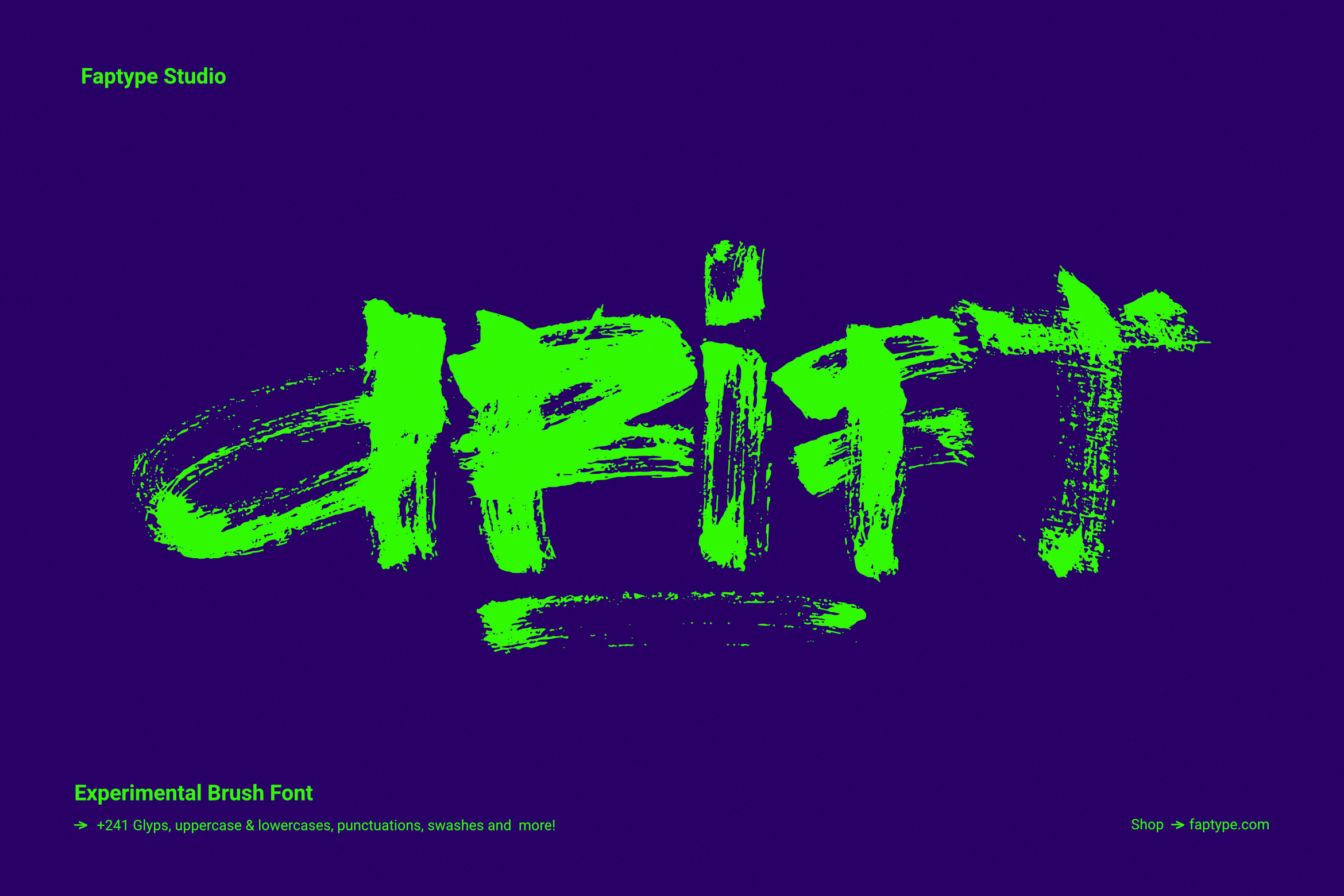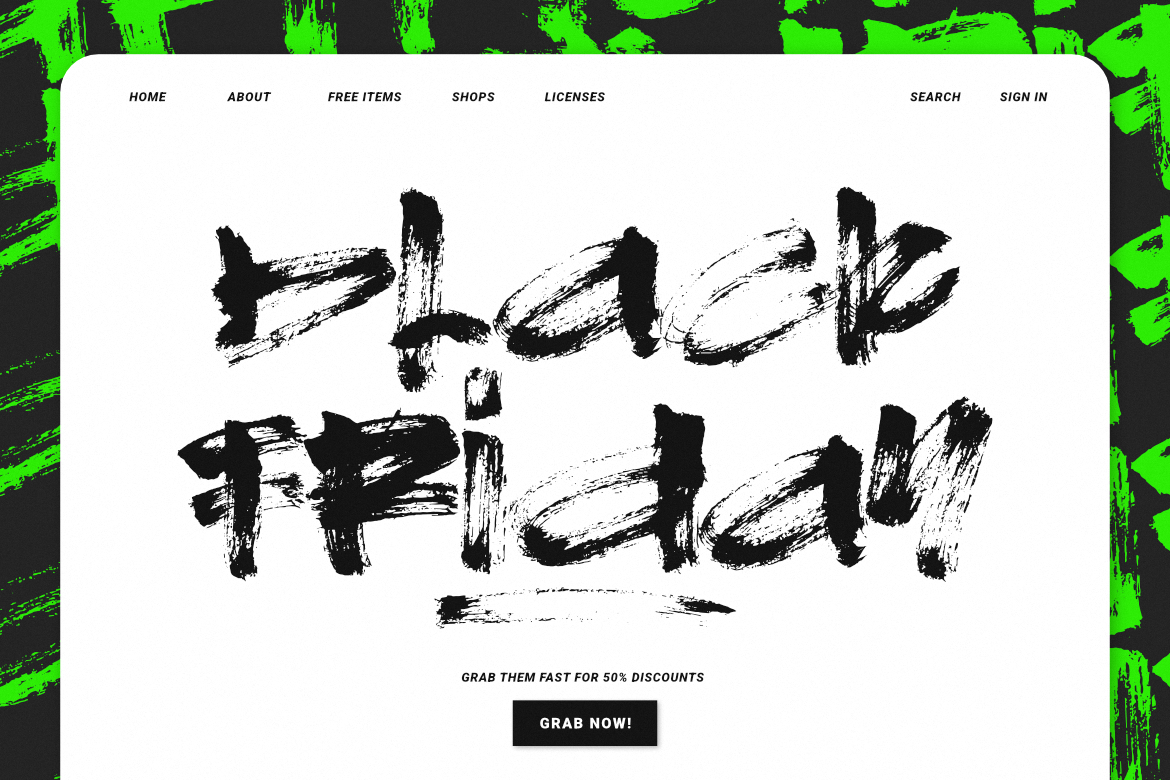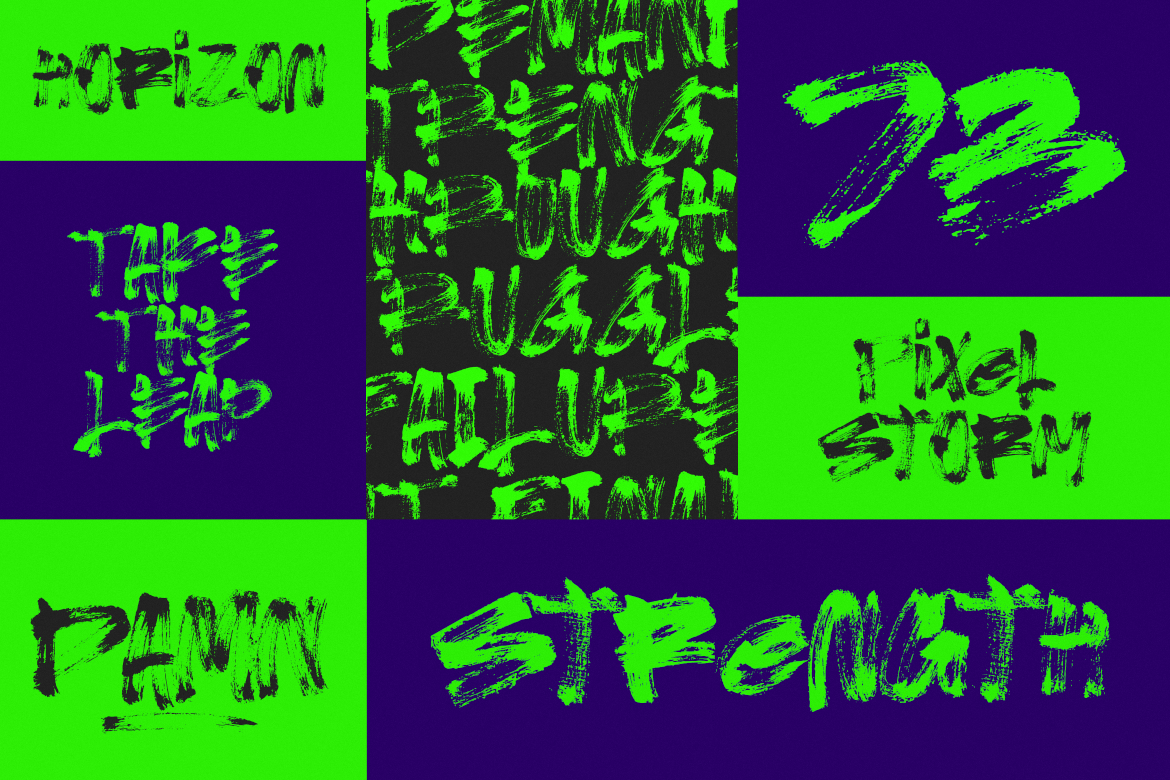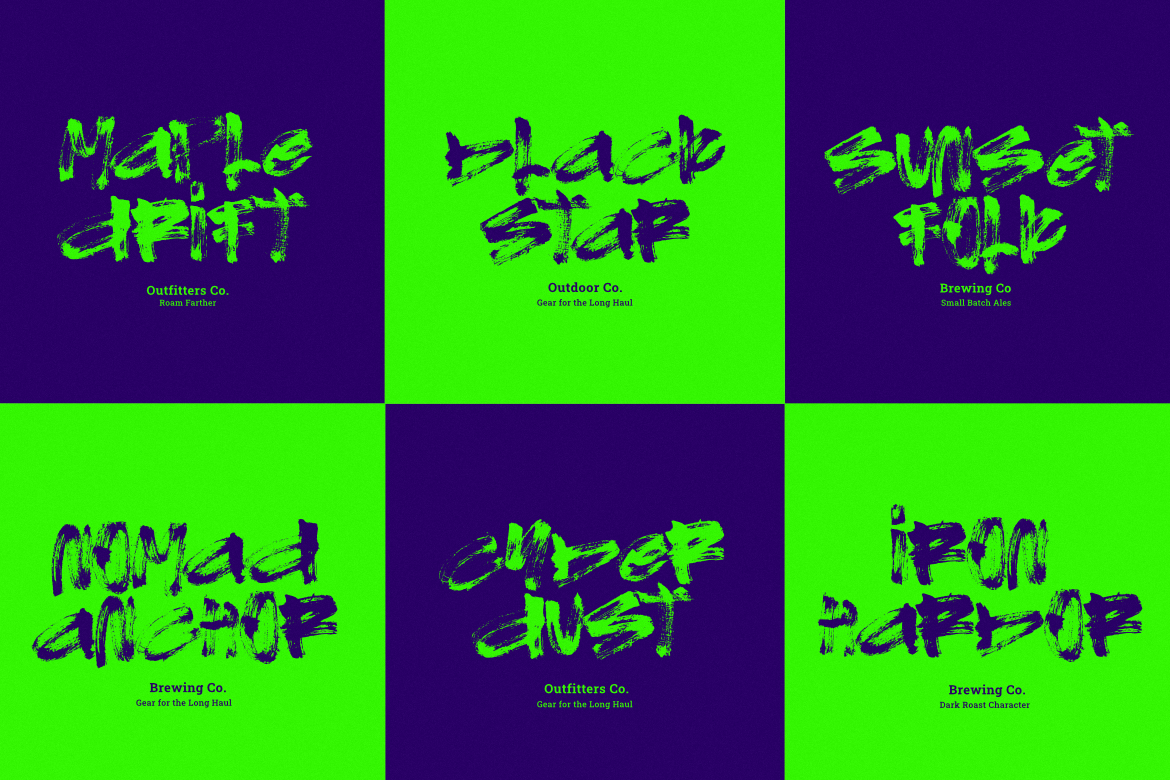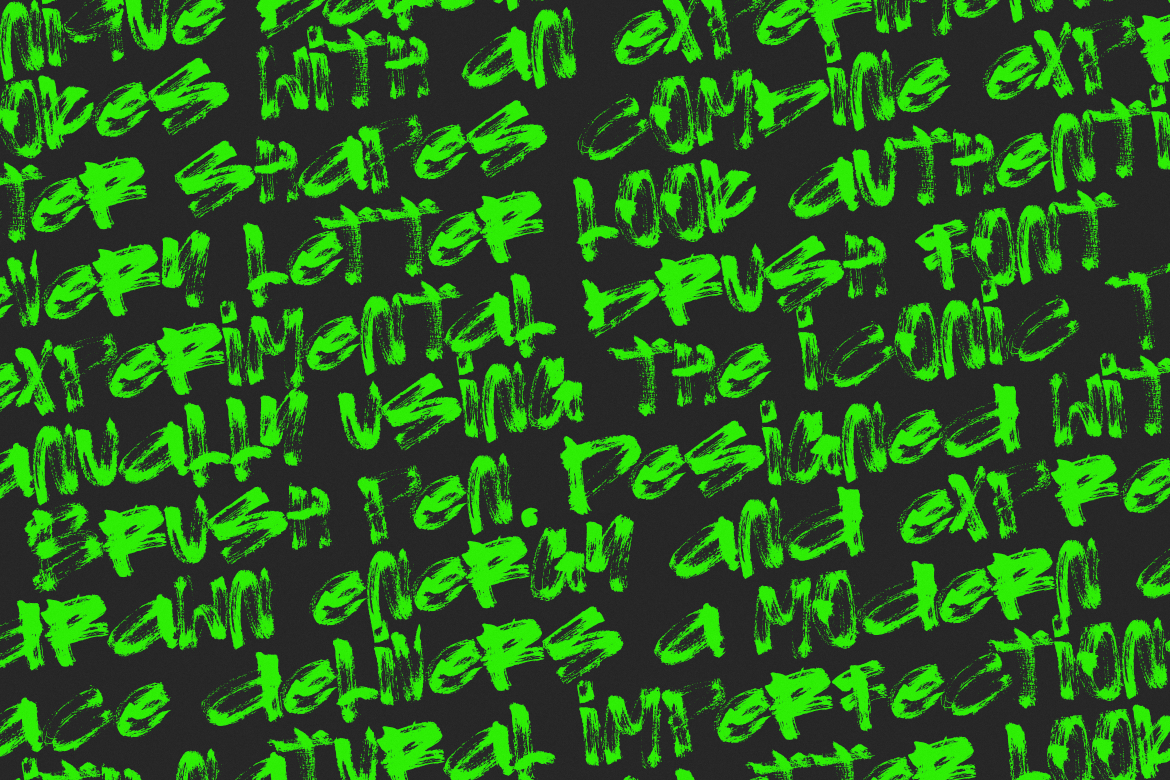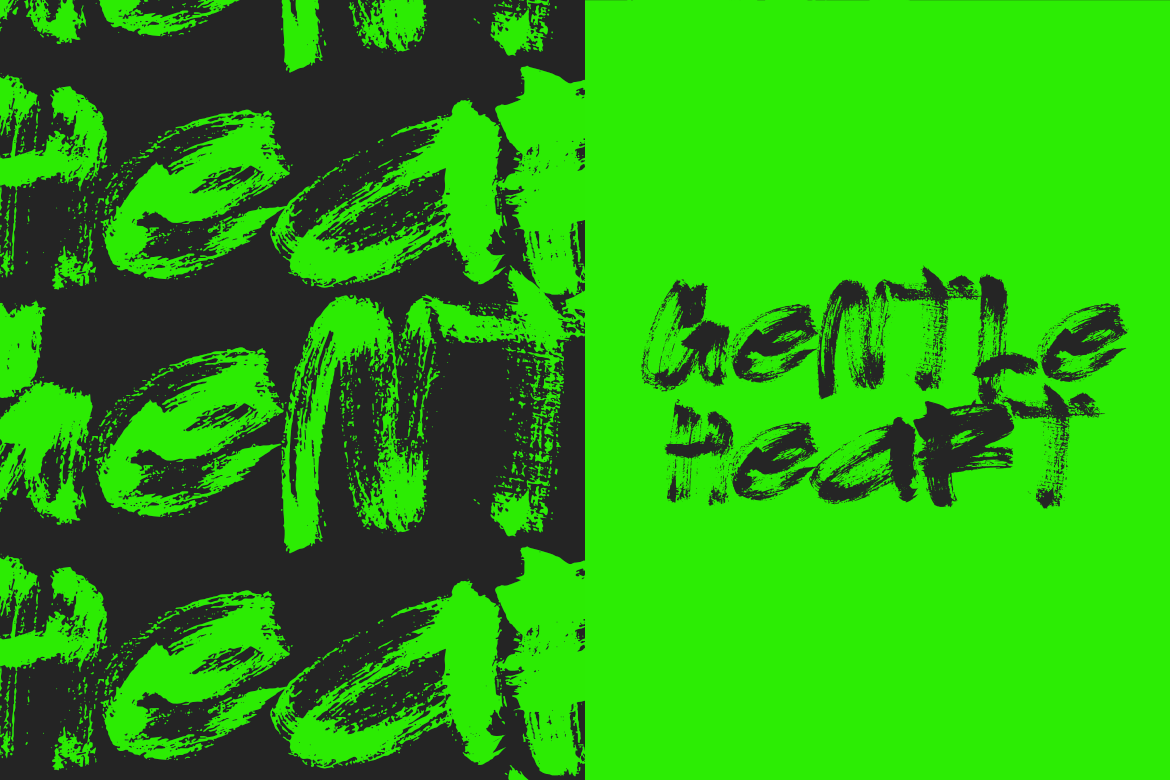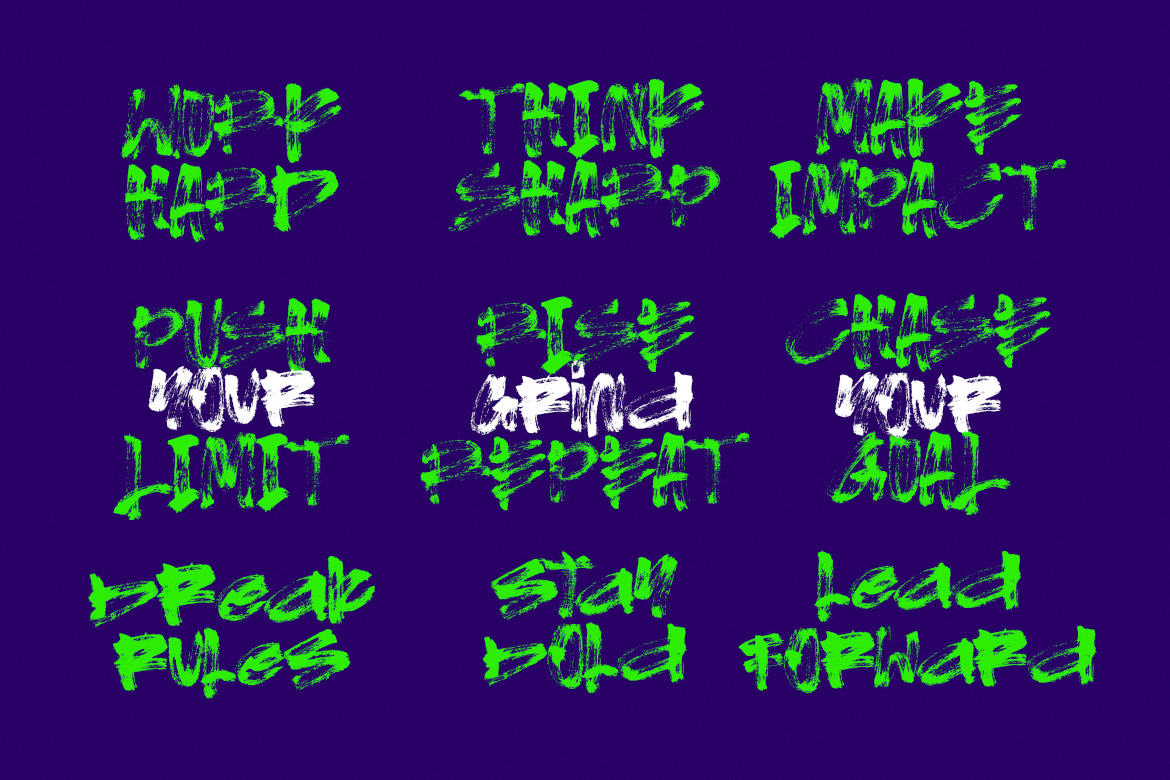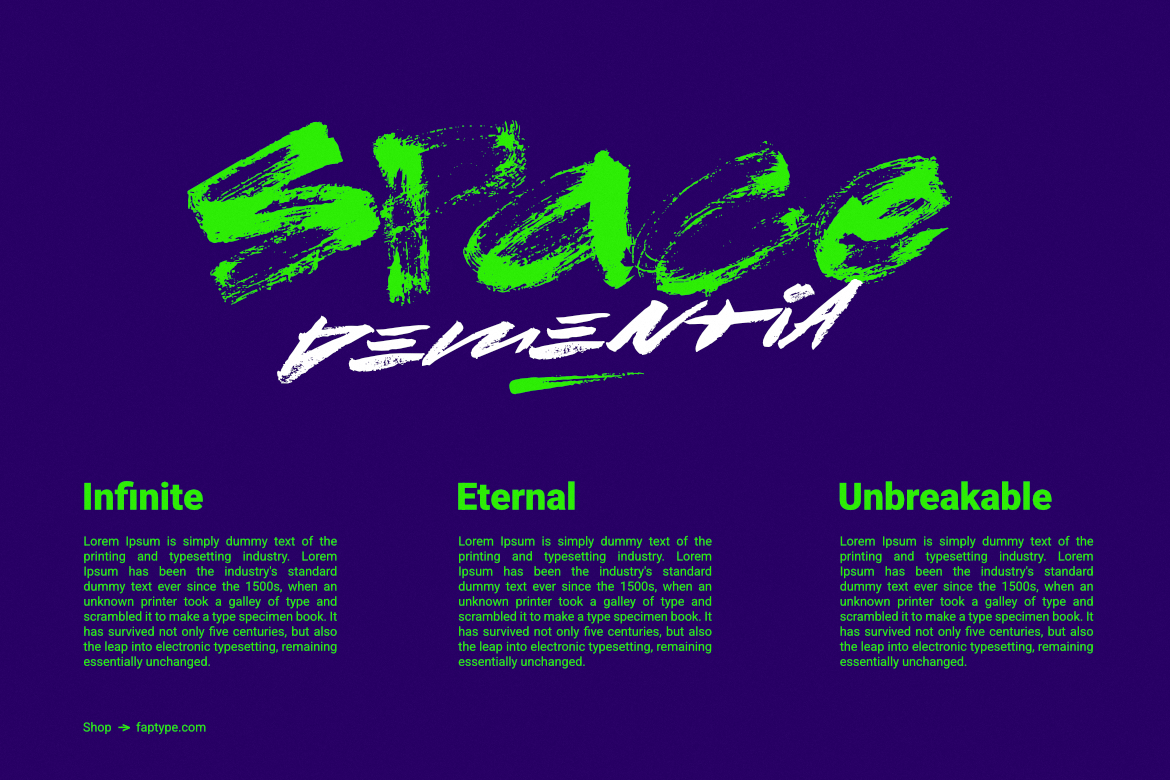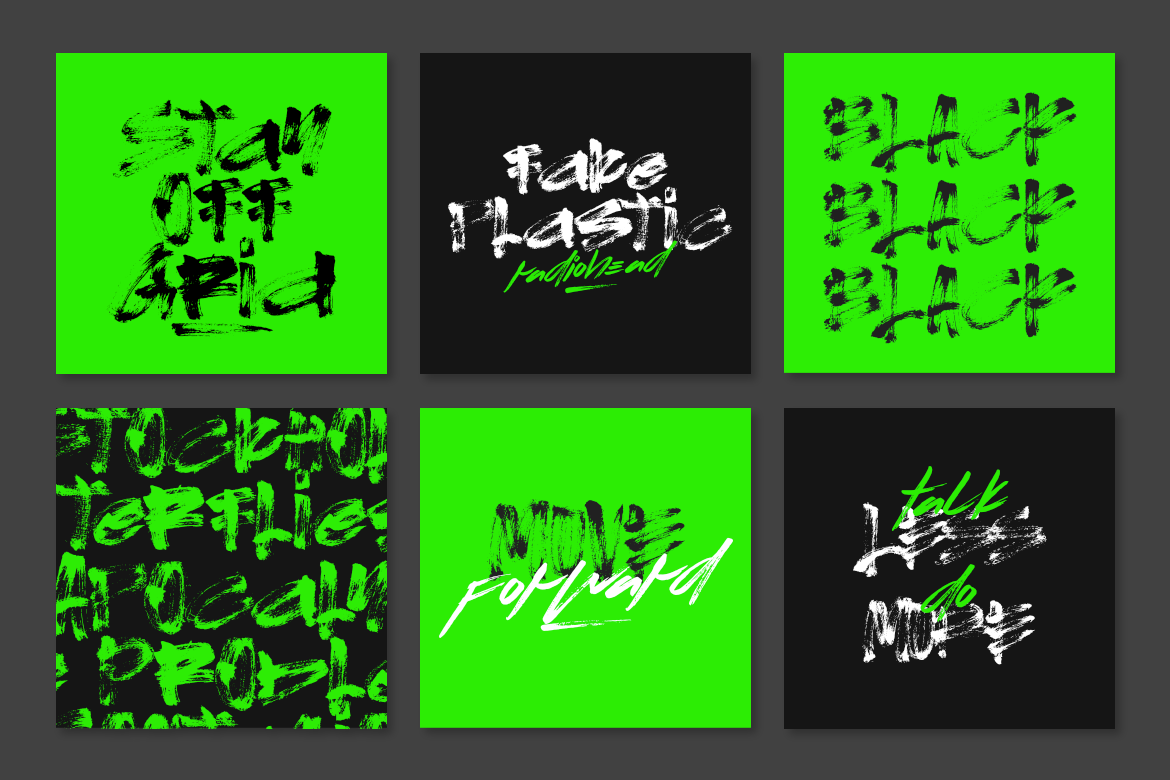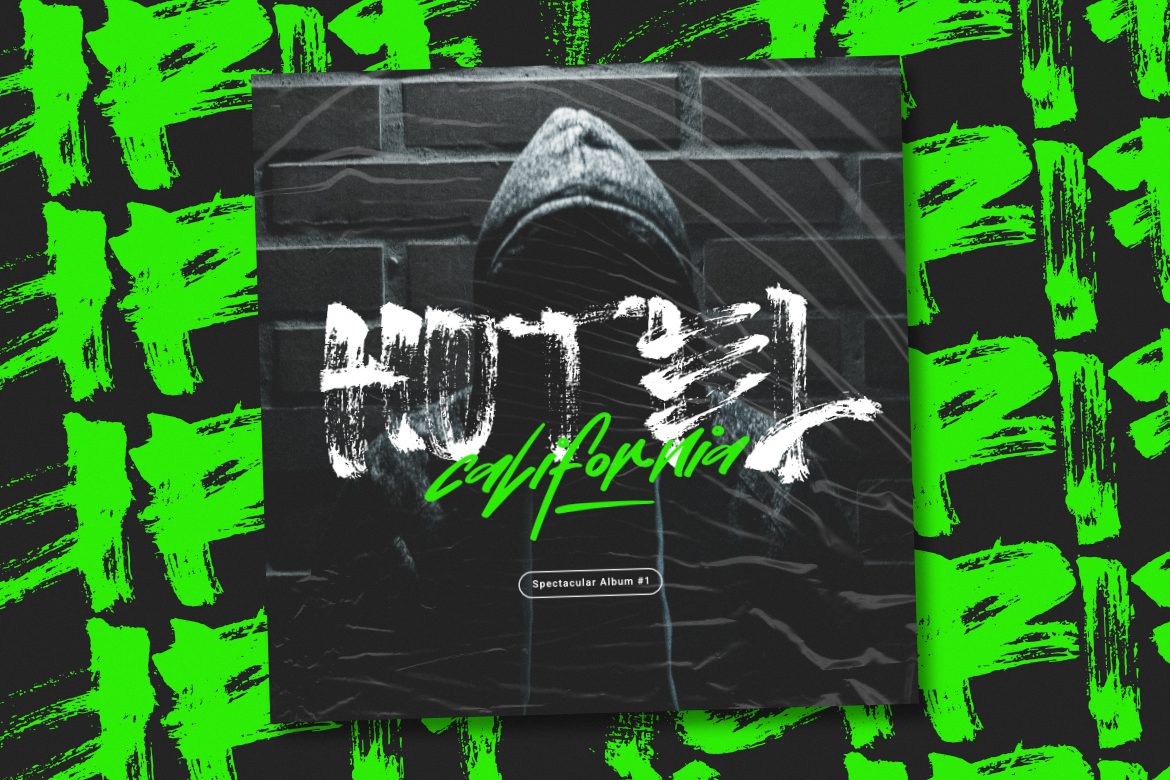
Drift – Experimental Brush Font is a raw and expressive brush typeface created using the Tombow Fudenosuke Brush. Built from real hand-painted strokes, Drift combines aggressive brush movement, rough ink textures, and imperfect letterforms to create a bold and energetic display font.
Unlike clean and polished brush fonts, Drift embraces the unpredictable character of real brush lettering. The strokes are intentionally rough, distressed, and irregular, creating a strong handmade appearance with plenty of natural texture and movement.
Each letter carries the marks of the brush, from dry and broken strokes to heavy ink buildup and loose paint-like details. This gives Drift its distinctive raw aesthetic and makes it especially effective for designs that need attitude, energy, and a handcrafted edge.
Drift Experimental Brush Font includes a complete uppercase and lowercase character set, numerals, punctuation, symbols, and decorative swashes. With its expressive character set and authentic brush texture, Drift gives designers plenty of freedom to create bold and unconventional typography.
Raw & Experimental Brush Lettering
The main character of Drift comes from its rough and unpredictable brush strokes.
Rather than trying to imitate perfectly controlled lettering, Drift preserves the imperfections of real brushwork. Uneven edges, dry-brush marks, broken strokes, and natural ink textures give the typeface a raw and energetic personality.
This makes Drift an excellent choice when clean typography feels too ordinary and you want your lettering to become a strong visual statement.
Created with Tombow Fudenosuke Brush
Drift was manually created using the Tombow Fudenosuke Brush, allowing the original brush movement and ink texture to become an important part of the typeface.
The result is a genuinely handcrafted brush font with:
- Rough and distressed brush strokes
- Natural ink texture
- Dry-brush details
- Irregular edges
- Expressive letterforms
- Strong handwritten movement
- Authentic hand-painted character
These imperfections are what give Drift its distinctive visual identity.
Perfect For
Drift Experimental Brush Font is designed for bold and expressive creative projects, including:
- Streetwear Design
- T-Shirt Design
- Poster Design
- Music Artwork
- Album Covers
- Band Merchandise
- Logo Design
- Branding
- Fashion Graphics
- Apparel Design
- Skateboard Graphics
- Packaging
- Social Media Graphics
- Editorial Artwork
- Experimental Typography
Its rough and energetic appearance works particularly well with dark, urban, rebellious, artistic, and contemporary visual styles.
Why Choose Drift?
Drift – Experimental Brush Font is made for designers who want typography with texture, attitude, and personality.
Its rough hand-painted strokes and distressed ink details make every word feel more energetic than a conventional brush typeface. Instead of looking digitally constructed, Drift maintains the unpredictable qualities of real brush lettering.
Use it when you want your typography to feel raw, expressive, imperfect, and alive.
Whether you’re creating a streetwear graphic, music poster, album cover, fashion campaign, merchandise design, or experimental branding project, Drift brings an authentic hand-painted edge to your work.